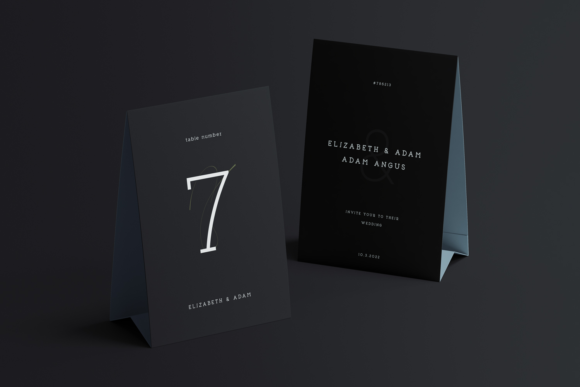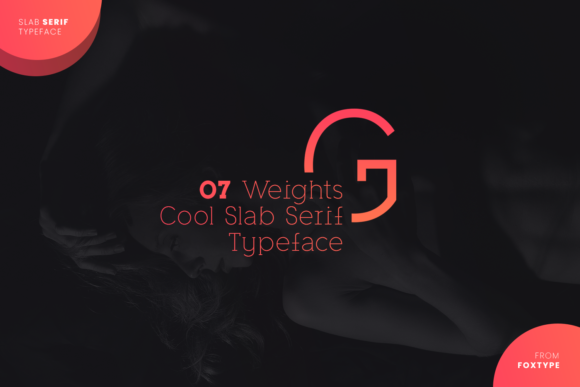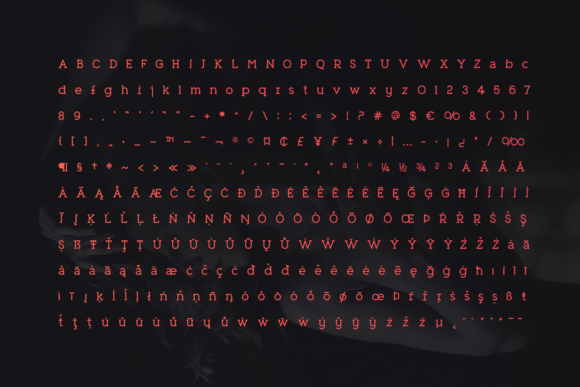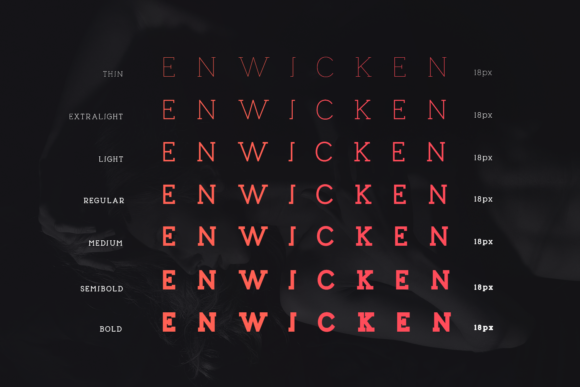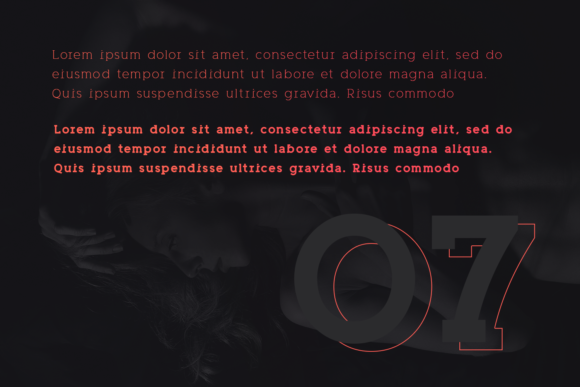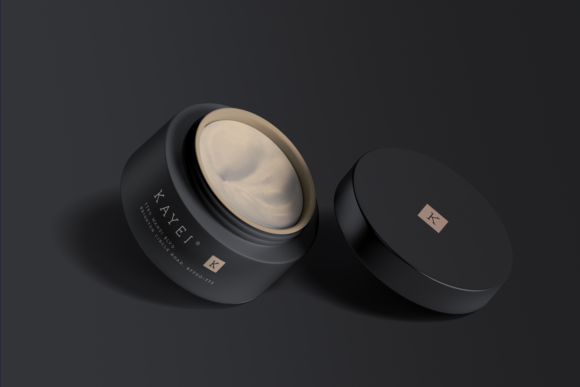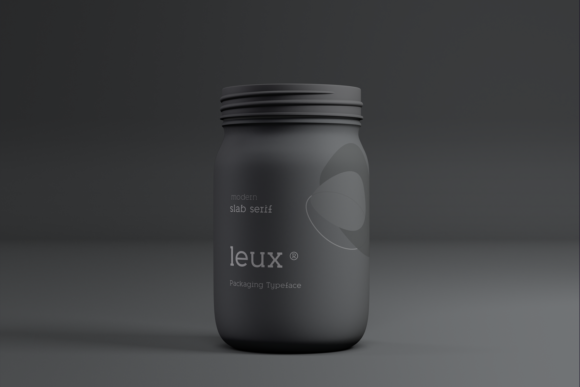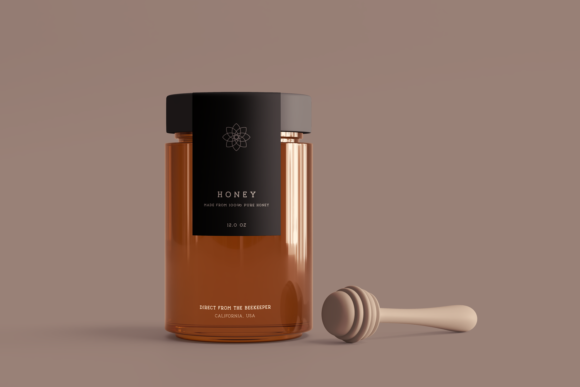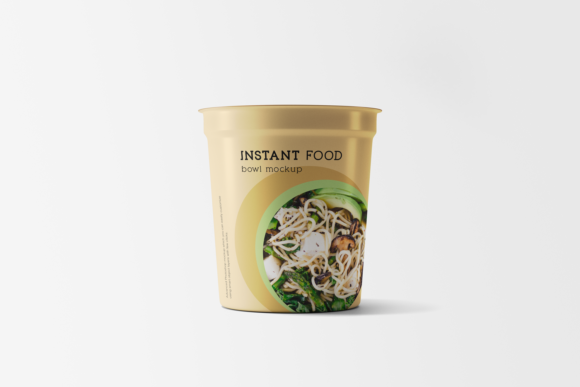
Enwicken
Enwicken: A Unique and Modern Slab Serif Font
Enwicken is a new and unique slab serif font with a powerful font family. It features a dependable and uncompromising style, with controlled letterforms and modern touches. This font looks amazing in logos, magazines, and movies, making it perfect for branding, headlines, captions, paragraphs, and posters. The various weights allow you to experiment with a wide range of applications. Enwicken is designed to make an impression without sacrificing beauty and readability, presenting a clean, minimalist, warm, and quirky style while remaining versatile.
Key Features of Enwicken
• Unique Design: Offers a modern and stylish look suitable for various applications.
• Slab Serif Structure: Features thick, rectangular serifs typical of slab serif fonts.
• Versatile Application: Ideal for both print and digital media projects.
• Multiple Weights: Provides flexibility for different design needs.
Ideal Uses for Enwicken
Enwicken’s unique characteristics make it particularly well-suited for:
When incorporating Enwicken into your designs, consider these tips:
• Use for headlines or short blocks of text to showcase its unique style.
• Utilize its multiple weights to adapt to various creative projects.
Enwicken is an excellent choice for designers looking to add a unique slab serif font to their typographic toolkit. Its ability to bring style and versatility to various design projects makes it stand out in the world of typography. Whether you’re working on logos, creating layouts for magazines, or developing content that requires a touch of sophistication, Enwicken offers the perfect blend of style and functionality.
Furthermore, Enwicken’s unique design allows it to shine in various contexts. From vintage-inspired designs with a modern twist to more contemporary layouts that need a touch of uniqueness, this font can elevate your projects. Its striking yet functional style works particularly well in designs that require a thoughtful and engaging mood.
In conclusion, Enwicken is a font that truly captures the essence of creativity and impact in typography. Its ability to work well in both minimalist projects and more elaborate layouts showcases its flexibility. For those looking to add a touch of unique charm to their work, Enwicken can even enhance themed creations with its distinctive style. It’s the perfect choice for designers seeking to make a strong, stylish impact across a wide range of creative projects.